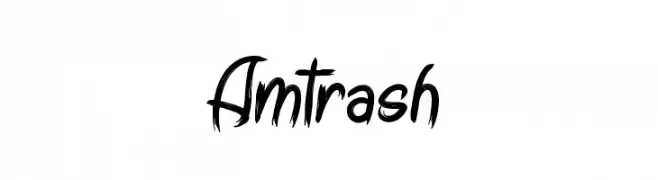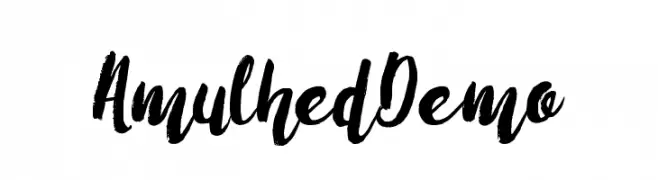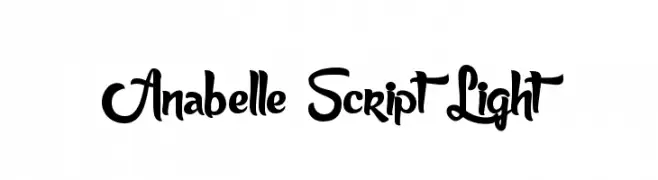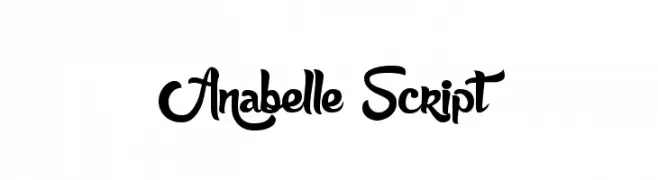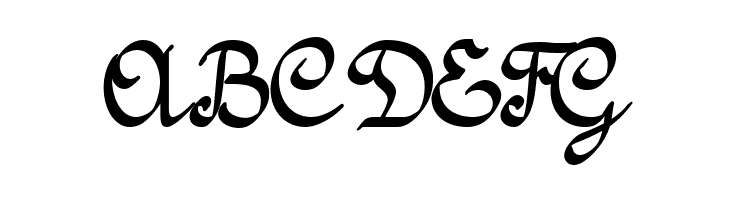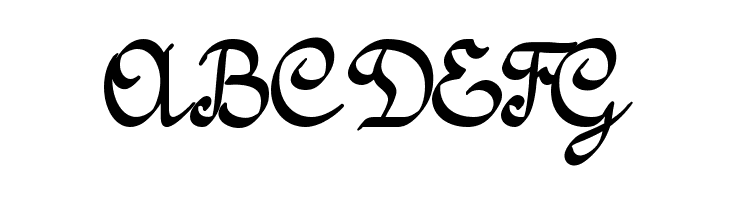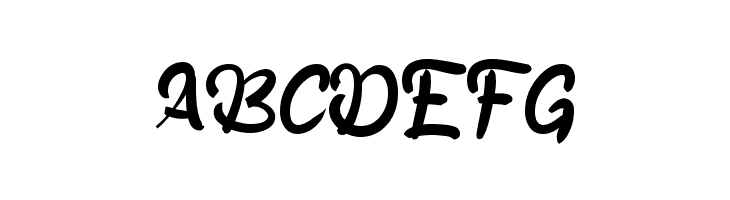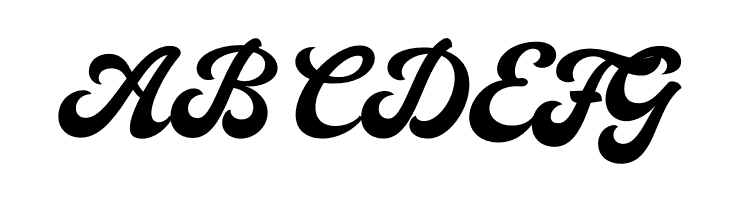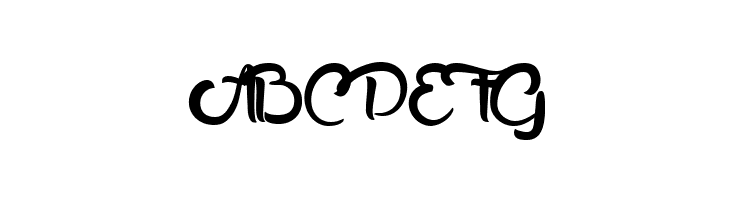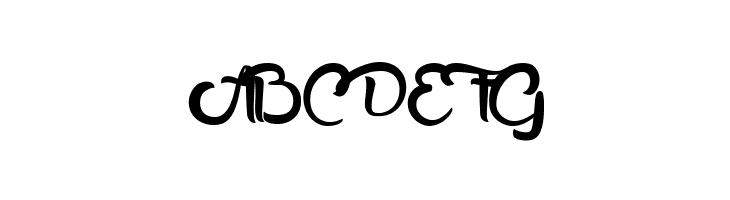
• Amptmann Script
An elegant script font with decorative, flowing letterforms.
• Amptmann Script
A decorative script font with elegant, flowing lines and intricate detailing.
• Amptmann Script Regular
A dynamic and elegant script font with flowing curves and stylish details.
• Amtrash
A bold, dynamic brush script with expressive strokes and a hand-painted look.
• AmulhedDemo
A bold, brush-style font with a hand-painted, expressive look.
• Amylase Script
A dynamic and fluid script font with connected letterforms and a handwritten style.
• Amylase Script
A bold, flowing script font with elegant curves and dynamic style.
• Anabelle Script
A playful, cursive script font with flowing, interconnected letters.
• Anabelle Script Light
A graceful and elegant script font with flowing, cursive letterforms.
• Analog Script Clean PERSONAL Personal
A bold, elegant script font with smooth, connected strokes.